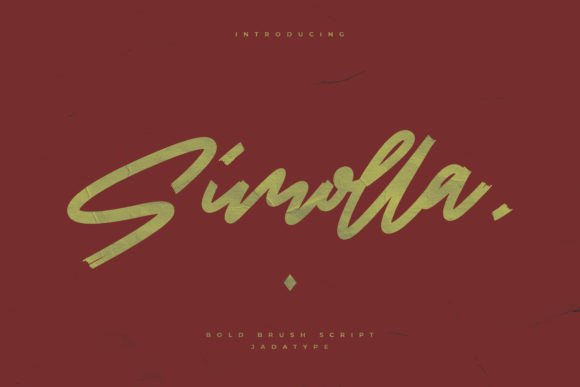
Journey into the realm of exquisite penmanship with Simolla Font, a breathtaking script font that captures the essence of handwritten elegance. This masterpiece, meticulously crafted by jadatype, exudes a bold brush style, transforming your digital creations into works of art.
Unleash your creativity and let Simolla's enchanting strokes dance across your posters, adorning them with a touch of sophistication. Envision your t-shirts adorned with Simolla's graceful characters, turning them into wearable expressions of your unique style. Make your websites and social media platforms come alive with Simolla's captivating presence, captivating your audience with its undeniable charm.
Dive into the world of Simolla Font. Experience the joy of transforming your creative visions into tangible realities, whether it's designing eye-catching book covers, crafting captivating movie titles, or simply adding a touch of elegance to your everyday documents. Simolla's versatility knows no bounds, making it the perfect companion for a myriad of projects.
With Simolla Font, you'll embark on a typographic adventure, discovering the boundless possibilities of self-expression. Its comprehensive character set, encompassing standard English letters, numbers, punctuation, and a diverse range of accents, empowers you to communicate in a multitude of languages, transcending cultural barriers.
Embrace the allure of Simolla Font today and unlock the gateway to typographic excellence. Let your imagination soar as you create designs that captivate and inspire. Simolla Font awaits you, ready to transform your digital creations into masterpieces that resonate with beauty and elegance.